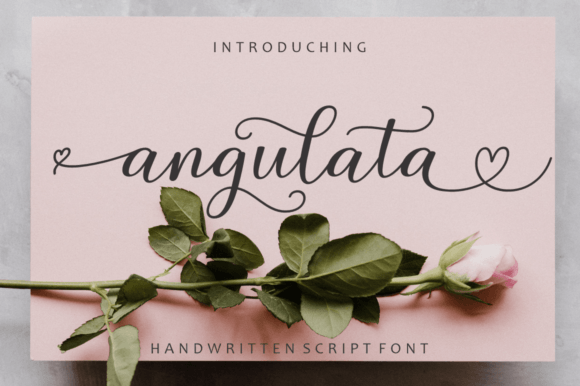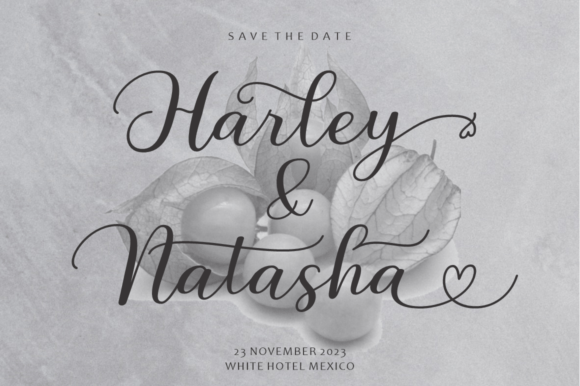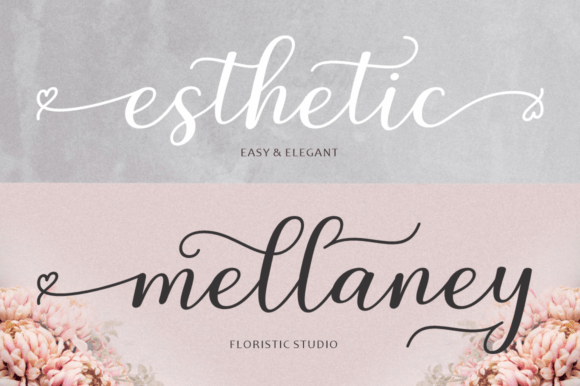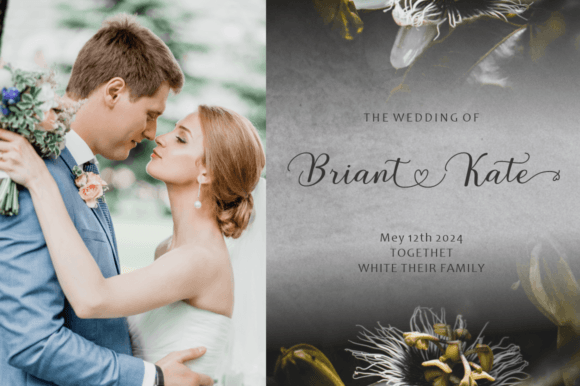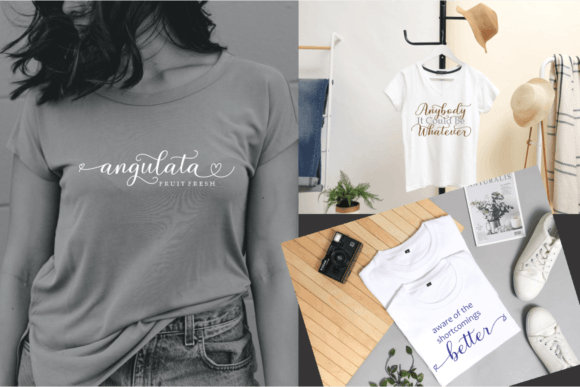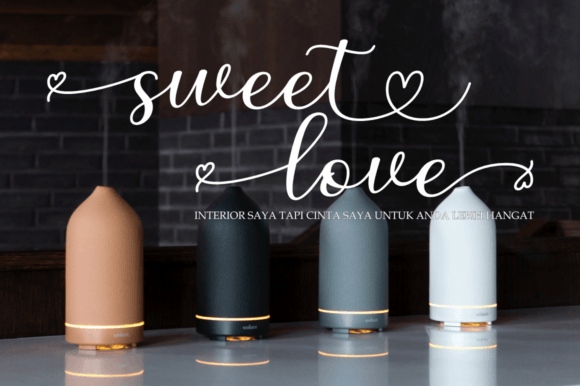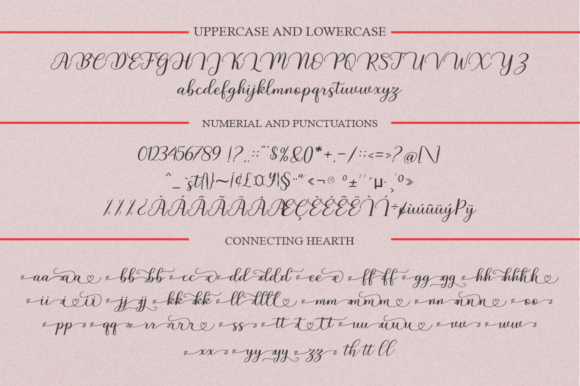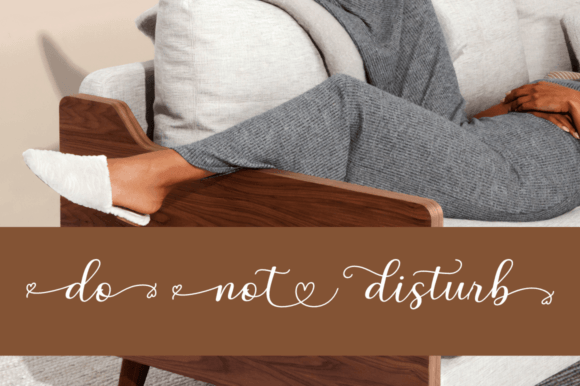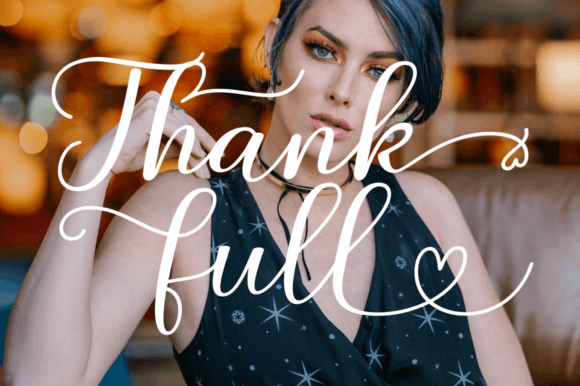
Angulata Font
About Angulata Font
**Angulata: Where Modernity Meets Calligraphic Elegance**
In the vibrant tapestry of fonts, **Angulata** stands out as a beacon of contemporary sophistication. It’s not merely a typeface; it’s an artful fusion of modern style and classic calligraphy, meticulously crafted to breathe life into your designs. Imagine a font that seamlessly merges the fluidity of contemporary handwriting with the grace of traditional calligraphy; that’s precisely what Angulata brings to the table.
**A Modern Calligraphic Marvel:**
At its core, **Angulata** embodies the essence of modernity. Its strokes are sleek, its lines are smooth, and its curves are chic. This font captures the very spirit of contemporary handwriting, making it ideal for projects that demand a touch of urban elegance. Whether you’re envisioning a trendy brand logo, stylish wedding invitations, or eye-catching posters, Angulata’s modern calligraphic charm effortlessly elevates your designs to the next level.
**Perfect for Every Occasion:**
The versatility of **Angulata** knows no bounds. It’s not limited by occasion or context; it’s designed to enhance every design it graces. Picture it adorning the pages of a high-end magazine, adding a touch of sophistication to every word. Envision it on mugs, business cards, and quotes, turning ordinary objects into expressions of style. See it on wedding invites, where its elegant script sets the perfect tone for a romantic celebration. Angulata seamlessly adapts, making it your go-to choice for a plethora of design needs.
**Customization at Your Fingertips:**
What truly sets **Angulata** apart is its versatility. Each letter comes with a plethora of variations and options, offering you the creative freedom to customize your designs exactly as you wish. Whether you prefer a bold statement or a subtle whisper, Angulata empowers you to tailor your typography to your unique vision. It’s more than a font; it’s a toolkit for your creativity, allowing you to craft designs that are as distinct as your imagination.
**Elevate Your Designs:**
In the realm of design, first impressions matter, and **Angulata** ensures your designs make a lasting one. Its contemporary allure, coupled with the timeless elegance of calligraphy, creates a visual harmony that captivates the eye. Your branding becomes memorable, your wedding invitations become enchanting, and your posters become works of art. Angulata doesn’t just enhance your designs; it transforms them into captivating visual experiences, leaving an indelible mark on anyone who beholds them.
**In Conclusion:**
In the hands of a creative mind, **Angulata** is more than a font; it’s a design partner. It’s the brushstroke that adds finesse to your artistic endeavors, the stroke that turns words into poetry. With Angulata, you’re not just designing; you’re creating a symphony of elegance and style. So, whether you’re a seasoned designer or an aspiring artist, let Angulata be your muse. Let it inspire, let it elevate, and let it transform your designs into masterpieces. Welcome to a world where modernity dances with calligraphic grace, all thanks to the allure of **Angulata**.